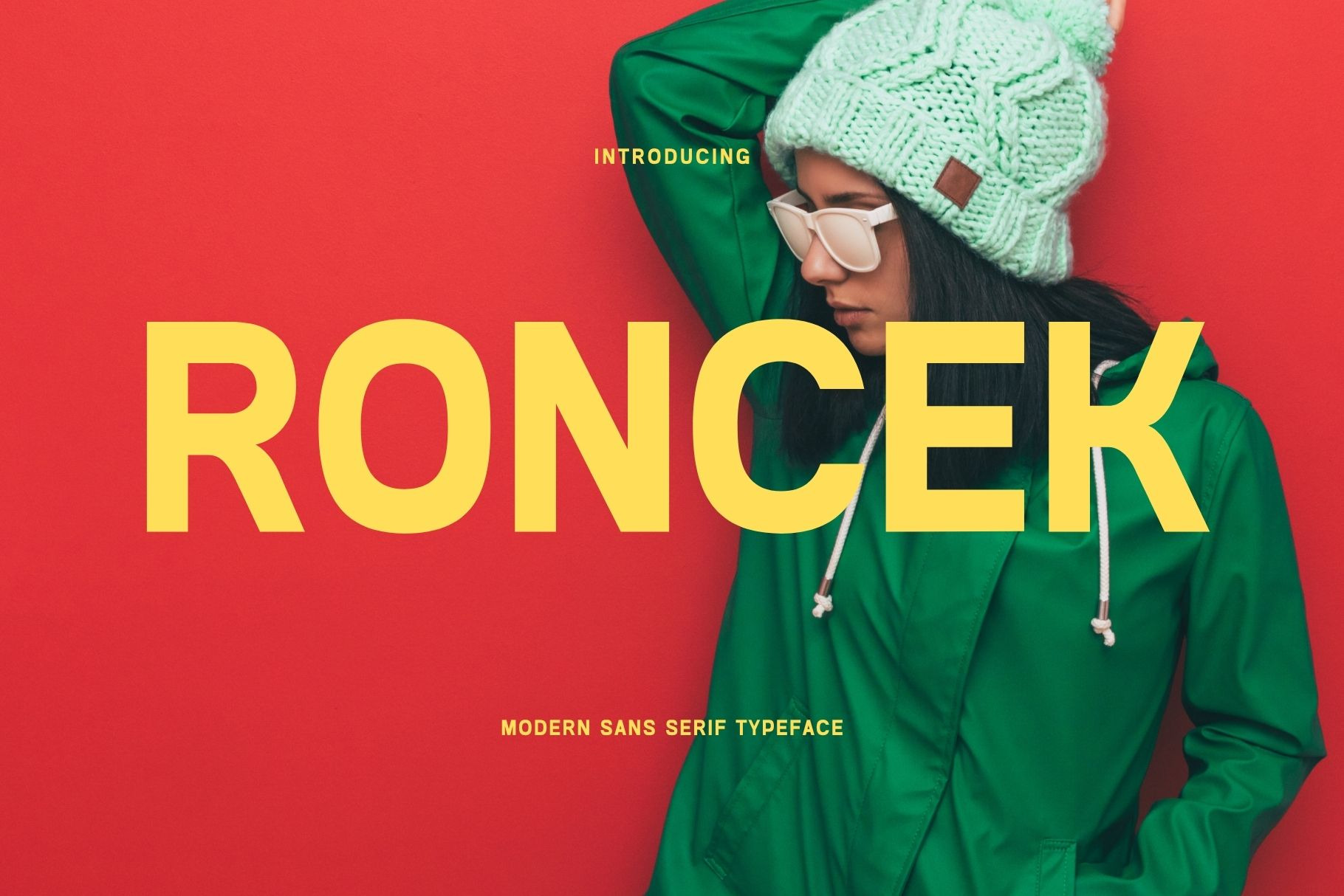
Roncek - Modern Sans Serif Typeface
Introducing 'Roncek' Font:
Unveiling "Roncek," a modern and bold sans-serif font that confidently asserts itself in any design. Boasting clean lines and a contemporary aesthetic, Roncek is ideal for projects that require sleek and impactful typography. Whether you're crafting branding, headlines, or any design where clarity and modernity are paramount, Roncek brings a bold and sophisticated presence. Elevate your visuals with this versatile sans-serif font that seamlessly combines style and readability.
Ideal for:
- Luxury Fashion
- Web Design Projects
- Advertising Campaigns
- Social Media Designs
- Personal Branding
- Ready for Creative Expression
- Immaculately Crafted Letters